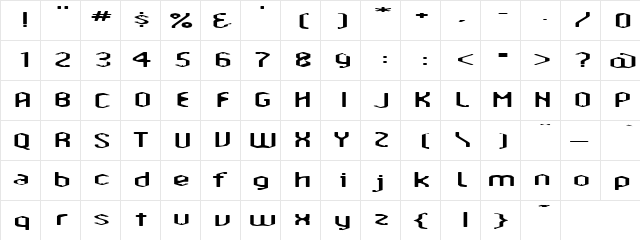
Amosis Technik Regular
Design Context for Amosis Technik Typeface
Amosis Technik channels digital-age aesthetics through its sharp, structured letterforms — ideal for brands that want to signal innovation.
Pro Tip: Try Amosis Technik with generous letter-spacing in UI labels and navigation — the geometric forms benefit from room to breathe.